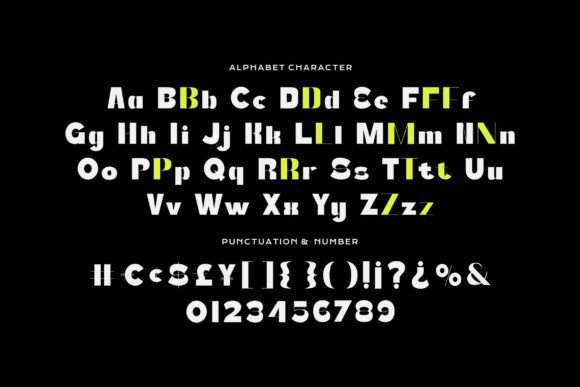
Introduction to Ghost Barrier Font
You’ve stared at your computer screen for hours, trying to find the perfect font to elevate your creative project. The cursor blinks impatiently as you scroll through countless options, searching for that one font that will make your design truly stand out. And then, it happens – you stumble upon the Ghost Barrier Font, and everything changes.
This high-quality font is more than just a design resource; it’s a game-changer. With its futuristic display style and modern alternates, the Ghost Barrier Font is perfect for designers who want to make a statement. Its clean, sharp curves and geometric cuts create a striking visual impact that’s sure to grab attention. And with its built-in system of alternate characters, you can easily mix and match glyphs to create captivating typographic rhythm and emphasis.
Key Features of Ghost Barrier Font
- High-quality design for creative projects: The Ghost Barrier Font is designed to deliver a unique and eye-catching look for your projects.
- Unique characteristics: The Ghost Barrier Font features a bold and modern design, making it perfect for use in logos, headers, and other design elements.
- Design resource: This font is a valuable addition to any designer’s toolkit, providing a versatile and creative solution for a wide range of design projects.
Honest Review: Ghost Barrier Font
I recently stumbled upon the Ghost Barrier Font, and I must say it’s a unique addition to any design project. With its high-quality design and transparent background, it’s perfect for creatives looking to add an extra layer of sophistication to their work.
- The font’s creative and unique design elements make it a great choice for high-end or avant-garde projects.
- The font may not be suitable for all design projects, particularly those that require a more traditional or conservative aesthetic.
Overall, the Ghost Barrier Font is a solid addition to any design resource collection. Its unique design and high-quality construction make it a great choice for creative projects. While it may have some limitations, I believe it’s a valuable asset for designers looking to push the boundaries of their work.
Experiment with different font sizes and styles to create a visually appealing design. Use the Ghost Barrier Font as a header or title font to grab attention. Combine the font with other design elements, such as images or graphics, to create a cohesive and engaging design.
The Ghost Barrier Font is perfect for creative projects, such as brochures, posters, and social media graphics. Use the font to create eye-catching headlines or titles that stand out from the crowd. The high quality and transparent background of the font make it a versatile design resource for any project.